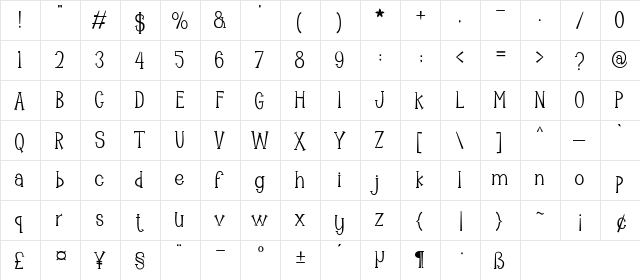
Mooncrato Regular
| Foundry | Sons Of Baidlowi |
| Designer | Azmilbahar |
Design Context for Mooncrato Typeface
Mooncrato takes a measured approach to typography — its balanced proportions and neutral character make it a reliable workhorse for both digital and print work.